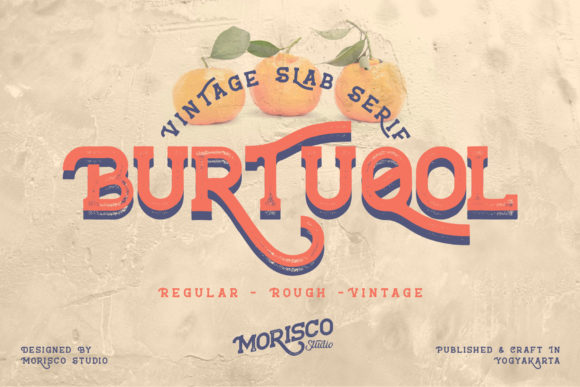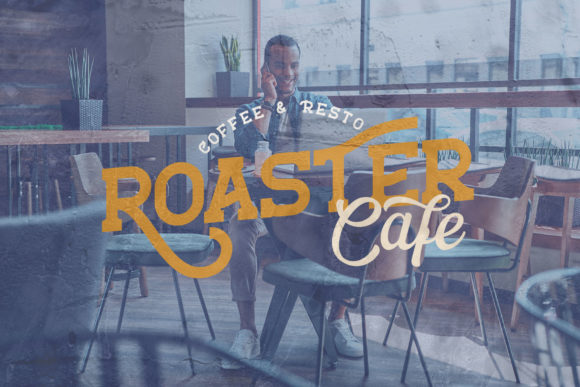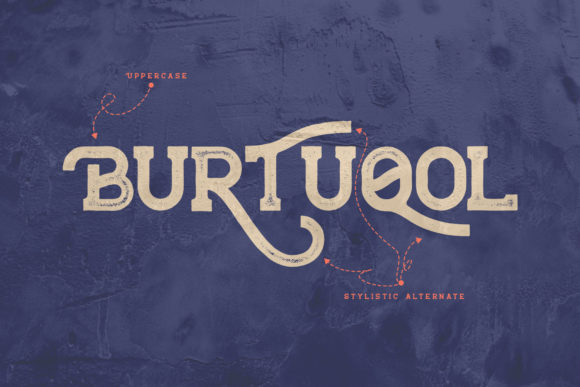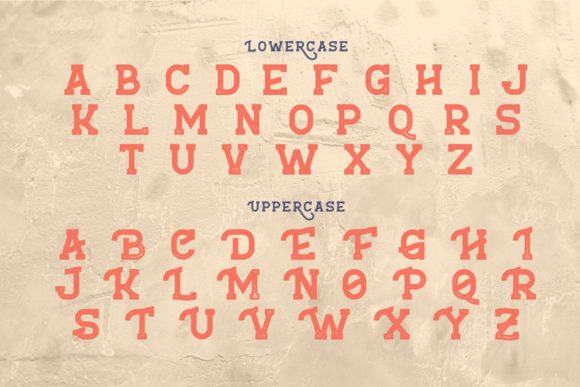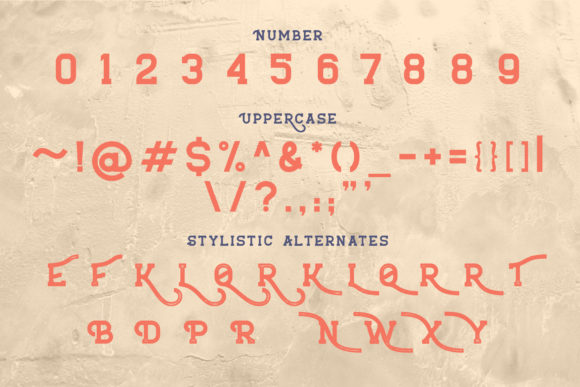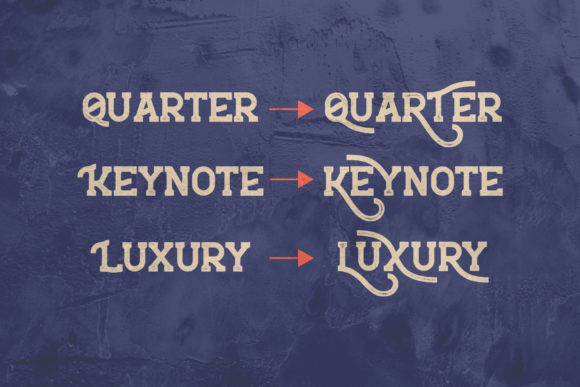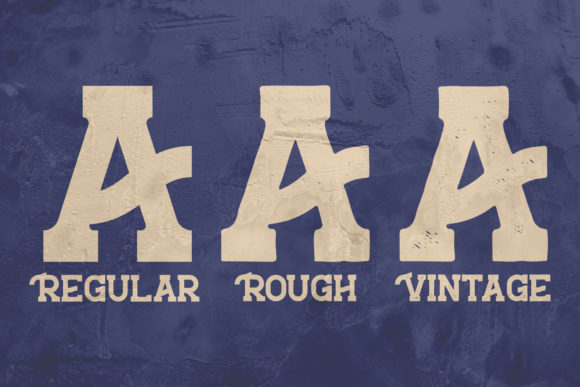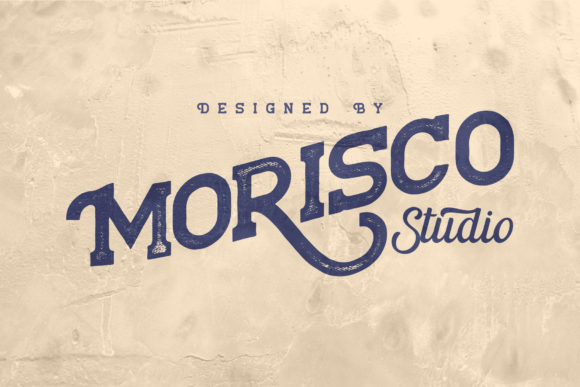
Burtuqol
Burtuqol: A Bold and Vintage-Styled Slab Serif Font
Burtuqol is a distinctive slab serif font that combines boldness with a vintage aesthetic. This versatile typeface offers designers a powerful tool for creating impactful typography across a wide range of design projects.
Key Features of Burtuqol
• Bold Design: Features a strong, eye-catching appearance that commands attention
• Vintage Style: Incorporates design elements reminiscent of classic typography
• Slab Serif Structure: Maintains the characteristic thick, rectangular serifs typical of slab serif fonts
• Versatile Application: Suitable for a variety of topics and design contexts
• Elevating Quality: Has the potential to enhance and uplift any creative project
Ideal Uses for Burtuqol
Burtuqol’s unique characteristics make it particularly well-suited for:
• Vintage-inspired branding and logo design
• Retro-themed poster and advertisement layouts
• Book covers and editorial designs with a classic touch
• Packaging design for products aiming for a nostalgic look
• Signage and display typography
When incorporating Burtuqol into your designs, consider the following tips:
• Use for headlines or short blocks of text to maximize its bold impact
• Experiment with different sizes to highlight the font’s vintage-inspired details
• Take advantage of its versatility across various topics and themes
Burtuqol is an excellent choice for designers looking to add a bold and vintage-styled slab serif to their typographic toolkit. Its ability to elevate designs makes it stand out in the world of typography. Whether you’re working on logo designs, creating layouts for retro-themed projects, or developing branding for various businesses, Burtuqol offers the perfect blend of boldness and vintage charm.